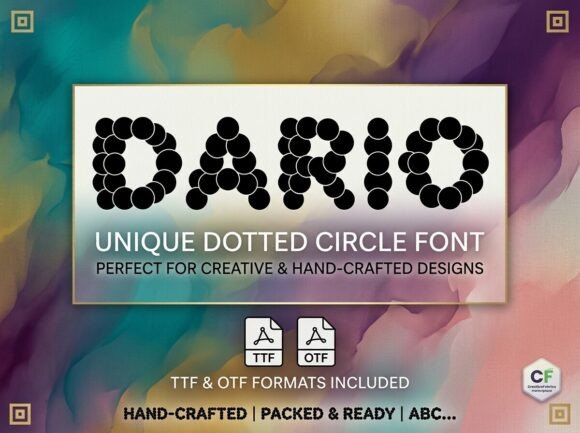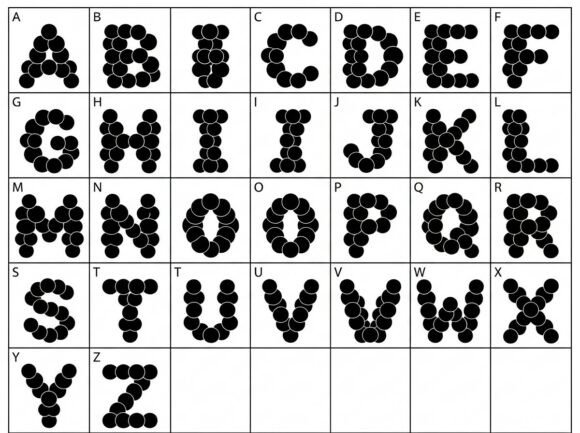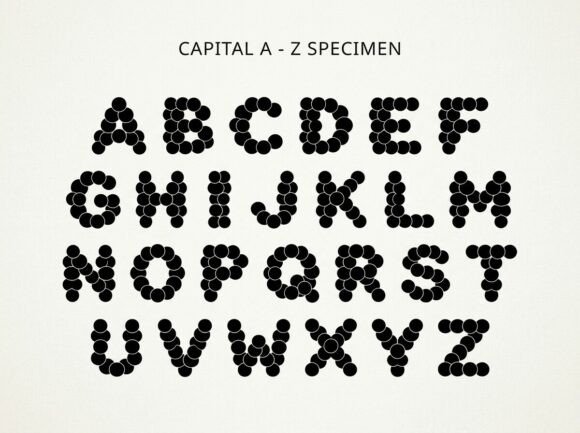
Introducing Dario Font: The Ultimate Bold and Funky Display Font
Are you looking for a font that can add a touch of playfulness and creativity to your design projects? Look no further than Dario Font, a bold and funky dots display font that is sure to make your headlines stand out. With its unique, tactile, and rhythmic charm, Dario is the perfect choice for designers and crafters who want to infuse their projects with a sense of imaginative whimsy and professional, artisanal energy.
The Inspiration Behind Dario Font
Dario Font is meticulously constructed from overlapping circular nodes, giving it a distinctive “pebbled” texture that evokes the nostalgic feel of vintage pop-art and classic mosaic aesthetics. This unique design makes it an extraordinary choice for youth-oriented branding, playful tech logos, video game titles, and vibrant digital graphics. The font’s heavy visual weight and organic, bubbly texture are sure to grab attention and leave a lasting impression.
Key Features of Dario Font
- Bold and Funky Design: Dario Font is a bold and funky display font that is perfect for making a statement.
- Tactile and Rhythmic Charm: The font’s unique design gives it a tactile and rhythmic charm that is sure to add a touch of personality to your projects.
- “Pebbled” Texture: The font’s distinctive “pebbled” texture gives it a unique and eye-catching appearance.
- Youth-Oriented Branding: Dario Font is perfect for youth-oriented branding, including logos, packaging, and advertising.
- Playful Tech Logos: The font’s playful design makes it an excellent choice for tech logos and branding.
- Video Game Titles: Dario Font is also perfect for video game titles, adding a touch of fun and personality to your game’s branding.
- Vibrant Digital Graphics: The font’s bold and colorful design makes it an excellent choice for vibrant digital graphics, including social media graphics, posters, and flyers.
Why Choose Dario Font?
So why choose Dario Font for your design projects? Here are just a few reasons:
- Unique and Eye-Catching Design: Dario Font has a unique and eye-catching design that is sure to grab attention.
- Professional and Artisanal Energy: The font’s design gives it a professional and artisanal energy that is sure to add a touch of personality to your projects.
- Imaginative Whimsy: Dario Font delivers a sense of imaginative whimsy that is sure to make your headlines stand out.
- Flexible and Versatile: The font is flexible and versatile, making it perfect for a wide range of design projects.
How to Use Dario Font
Using Dario Font is easy. Here are a few tips to get you started:
- Pair with Other Fonts: Dario Font pairs well with other fonts, including sans-serif and serif fonts.
- Use for Headlines: The font is perfect for headlines and titles, adding a touch of personality and whimsy to your text.
- Experiment with Colors: Dario Font looks great in a variety of colors, so don’t be afraid to experiment and find the perfect color for your project.
In conclusion, Dario Font is a bold and funky display font that is sure to add a touch of personality and whimsy to your design projects. With its unique, tactile, and rhythmic charm, Dario is the perfect choice for designers and crafters who want to infuse their projects with a sense of imaginative whimsy and professional, artisanal energy. So why wait? Download Dario Font today and start creating amazing designs that are sure to stand out!